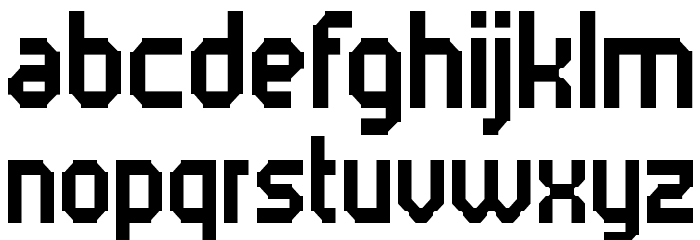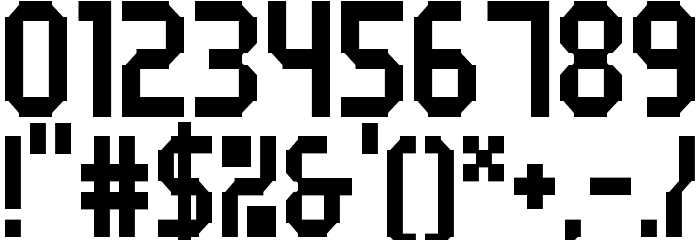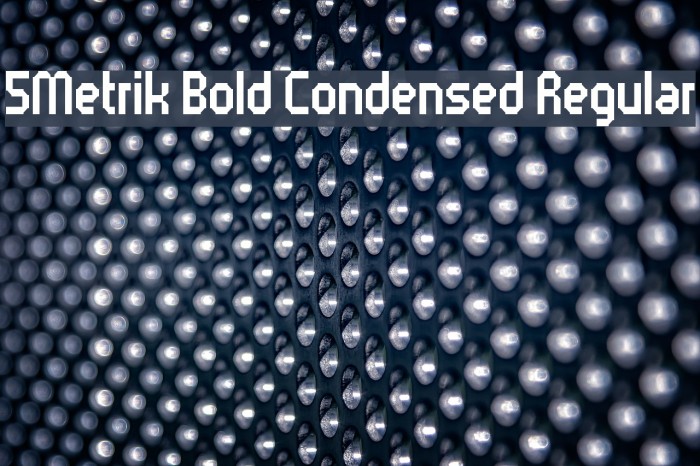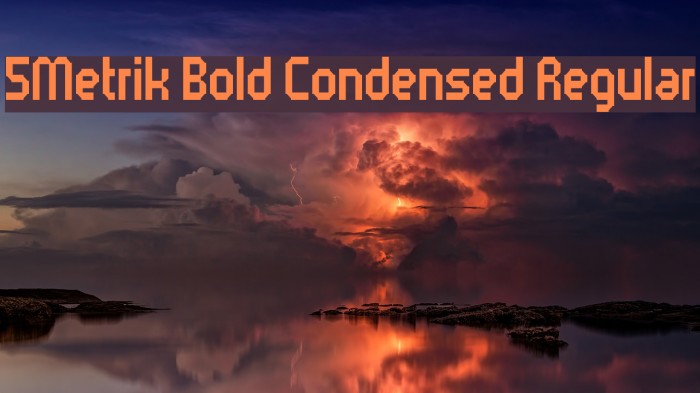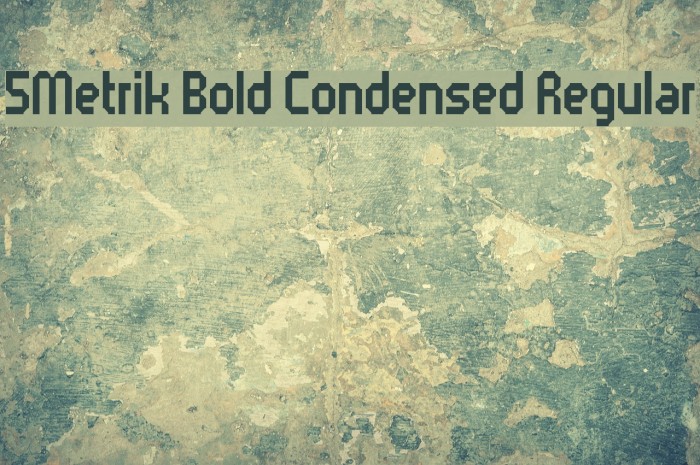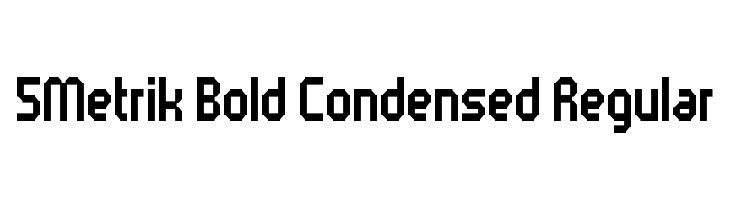
5Metrik Bold Condensed Regular Font
This font features a bold and condensed style with a geometric and blocky appearance. The characters are constructed with straight lines and sharp angles, giving it a modern and industrial feel. The uppercase and lowercase letters maintain a consistent height, contributing to a uniform look. The numerals and special characters follow the same design principles, ensuring cohesion across all glyphs. The font's structure is clean and minimalistic, making it suitable for projects that require a strong visual impact.
A bold, condensed, and geometric font with a modern industrial style.
- Proposed Projects: Ideal for branding, posters, headlines, and signage where a bold statement is needed.
- Character Spacing: Tight